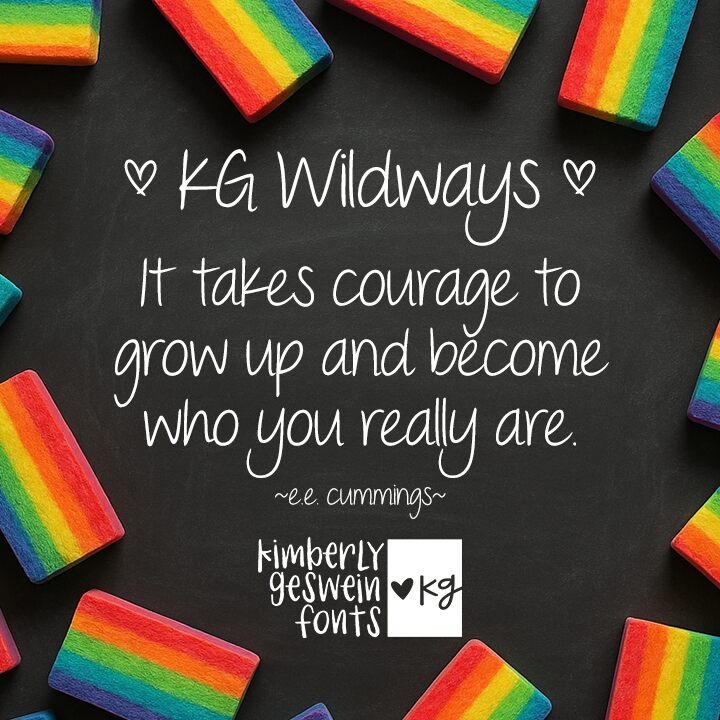
KG Wildways font family designed by Kimberly Geswein consists of 2 font styles. This natural handwriting font has a casual, friendly, and approachable vibe which it achieves by imitating human handwriting. Basic elements of the font are connected with flowing ascenders which adds another organic and engaging attribute to the final outlined text. Use this font family in your personal design projects to present headlines and body text in a human way.
Some of the use cases of KG Wildways include instant messaging and chat apps, mobile apps in general, games, greeting cards, comics, class notes, projects, or presentations, coloring books, GIFs, and social media stories. Font supports Latin characters only but can be paired with other fonts to expand the visual capability.